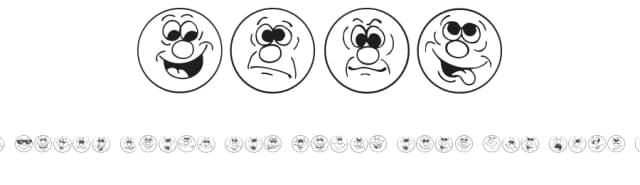
About Kitchen Kapers Font
Kitchen Kapers is a decorative font designed by West Wind Fonts. It includes 57 glyphs, a regular weight, TTF (TrueType) format, and 89 languages. Kitchen Kapers is free to download; check the license details on this page before commercial use. Decorative fonts like Kitchen Kapers work best for logos, posters, packaging, and standout headlines.
Kitchen Kapers Font is a decorative font that shines as a display or heading face. Pair it with a clean sans-serif or serif font for body text β the contrast creates a clear hierarchy while the two styles stay balanced and easy to read.
Kitchen Kapers Font
Kitchen Kapers Font is a decorative typeface by West Wind Fonts, ideal for logos, invitations, branding, and creative projects.